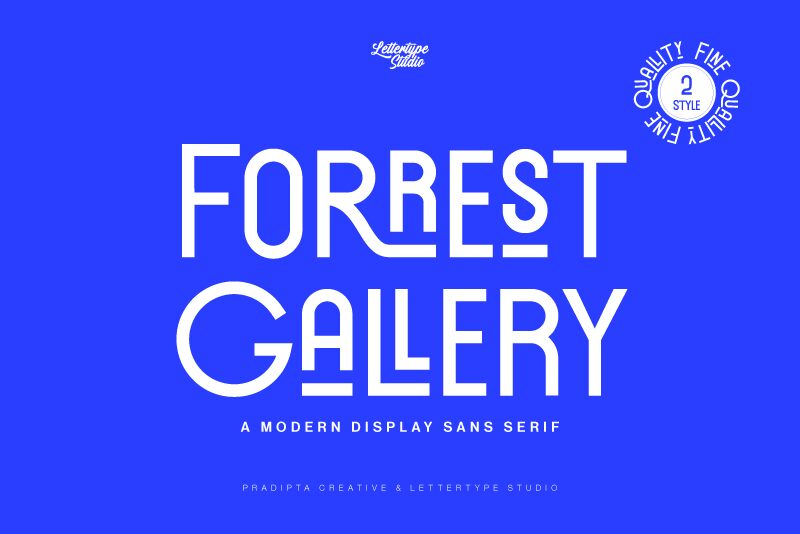
Forrest Gallery is a modern and elegant sans serif font by Lettertype Studio. With its semi-light weight and semi-condensed width, this font is perfect for projects that require a clean and minimalist look, such as corporate branding, editorial design, or website layouts. Forrest Gallery's sharp edges and subtle curves add a touch of sophistication to any design, making it suitable for both professional and creative projects. Whether you're creating a logo for a new business or designing an eye-catching poster, Forrest Gallery is the perfect choice for your next project.